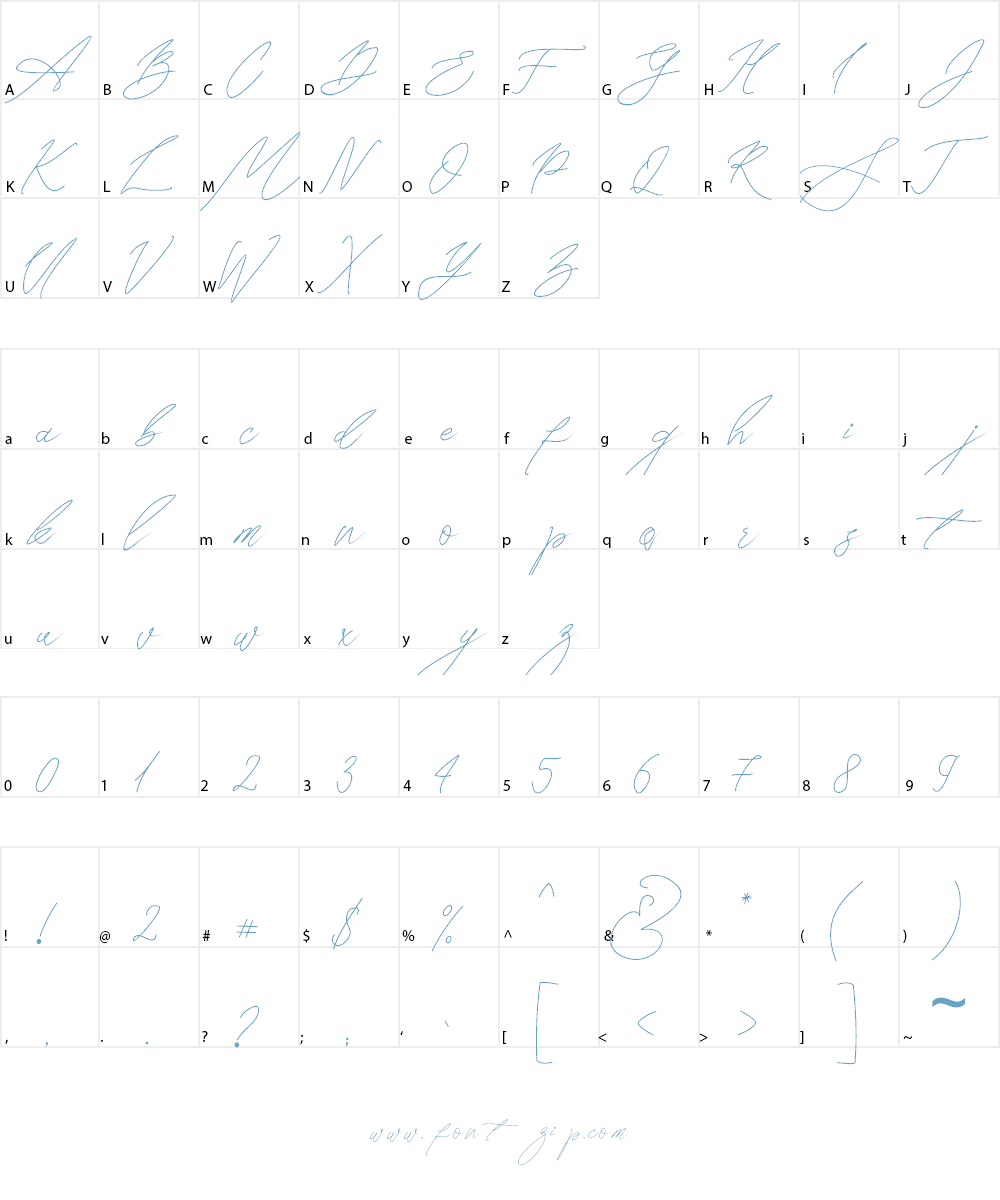
Hi Font Lover! This is a modern calligraphy font with the current handwriting style. Seoul is a stylish unique handwritten font and easy to remember.
It's great for unique branding, photo overlays, watermark, business card, invitations, wedding, photography, fashion, etc.
This font is easy to use, the basis if this unique font is it’s simplicity.